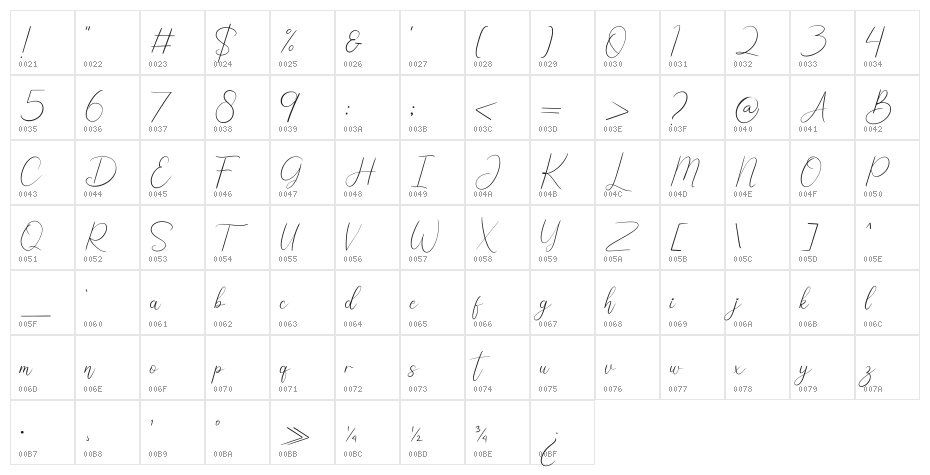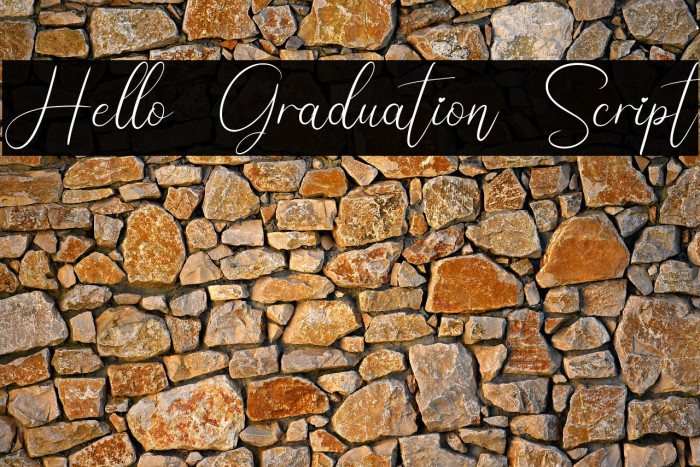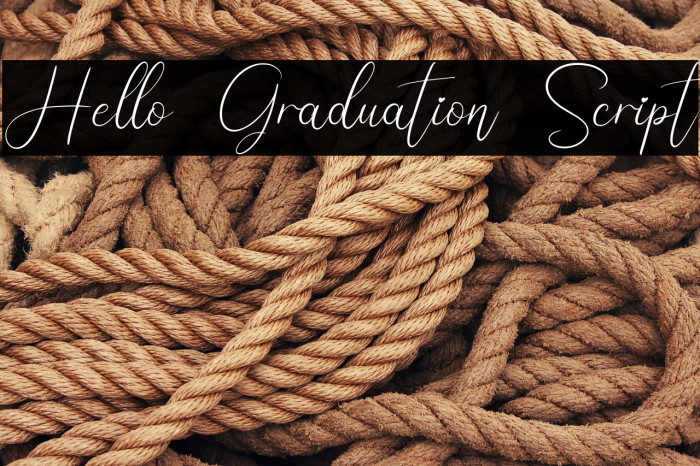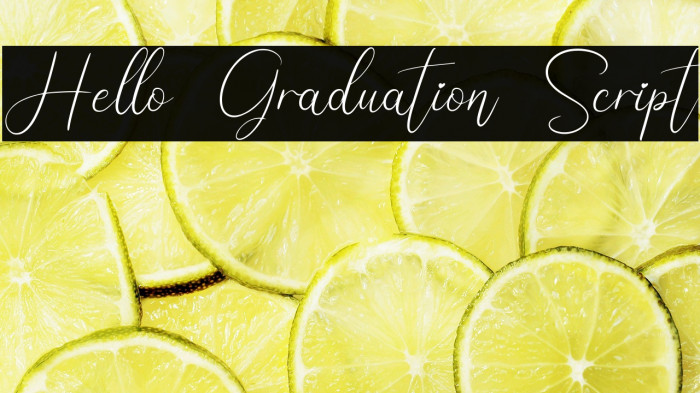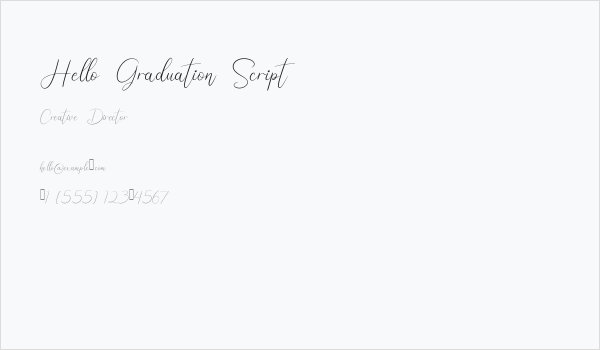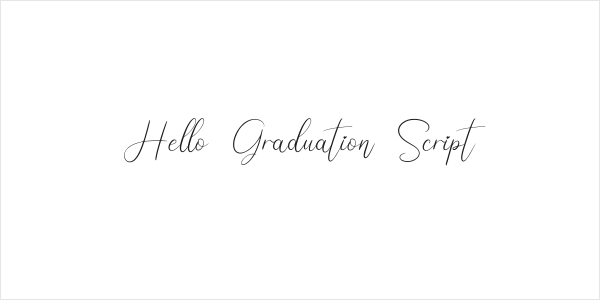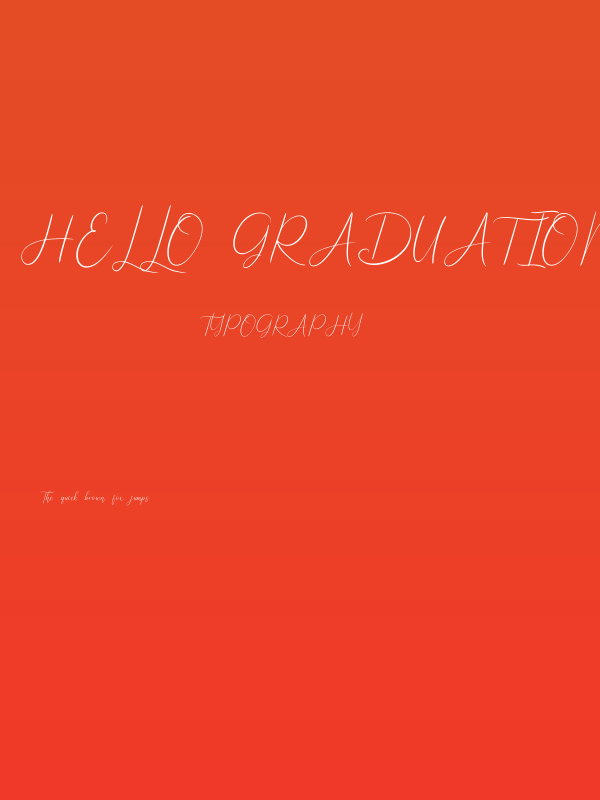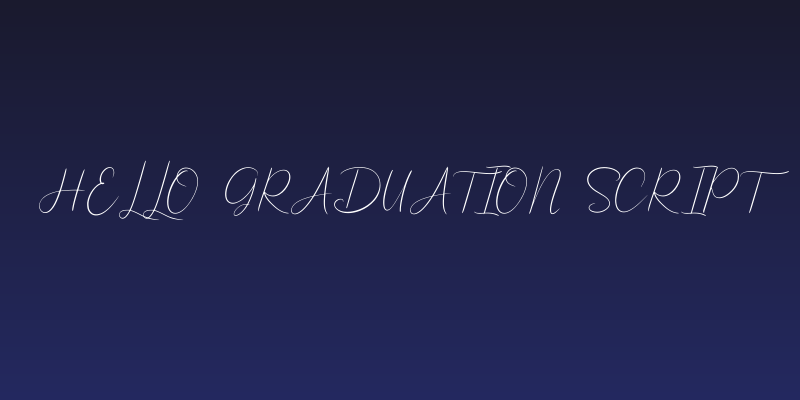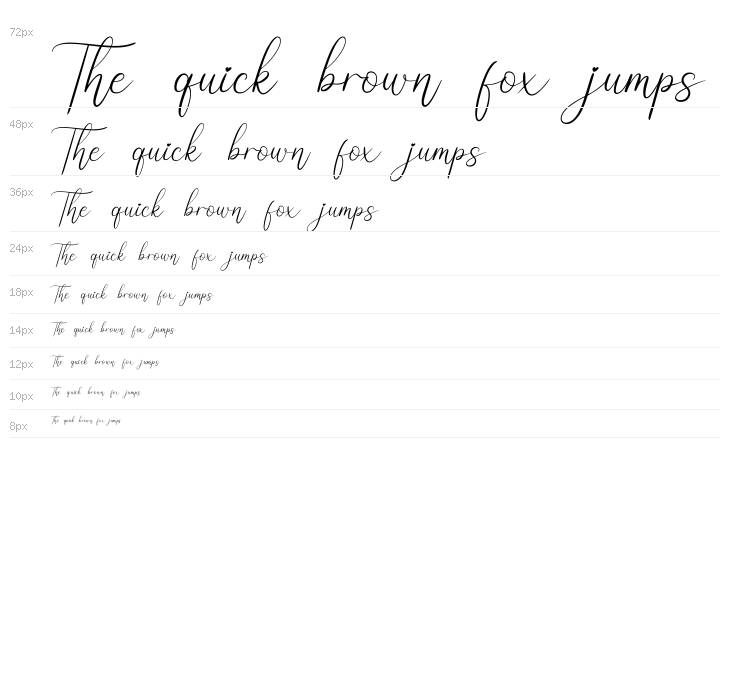
Hello Graduation Script Font
Hello Graduation Script Description
Elegant, flowing script with thin, delicate strokes and a handwritten, calligraphic appearance. The characters are connected or nearly connected, with high contrast and tall ascenders and descenders.
| Overall Style | Elegant, Decorative, Handwritten |
| Use Case | Logos, Invitations, Headlines, Decorative text |
| Proposed Projects | Wedding invitations, greeting cards, elegant branding, certificates, event posters. |